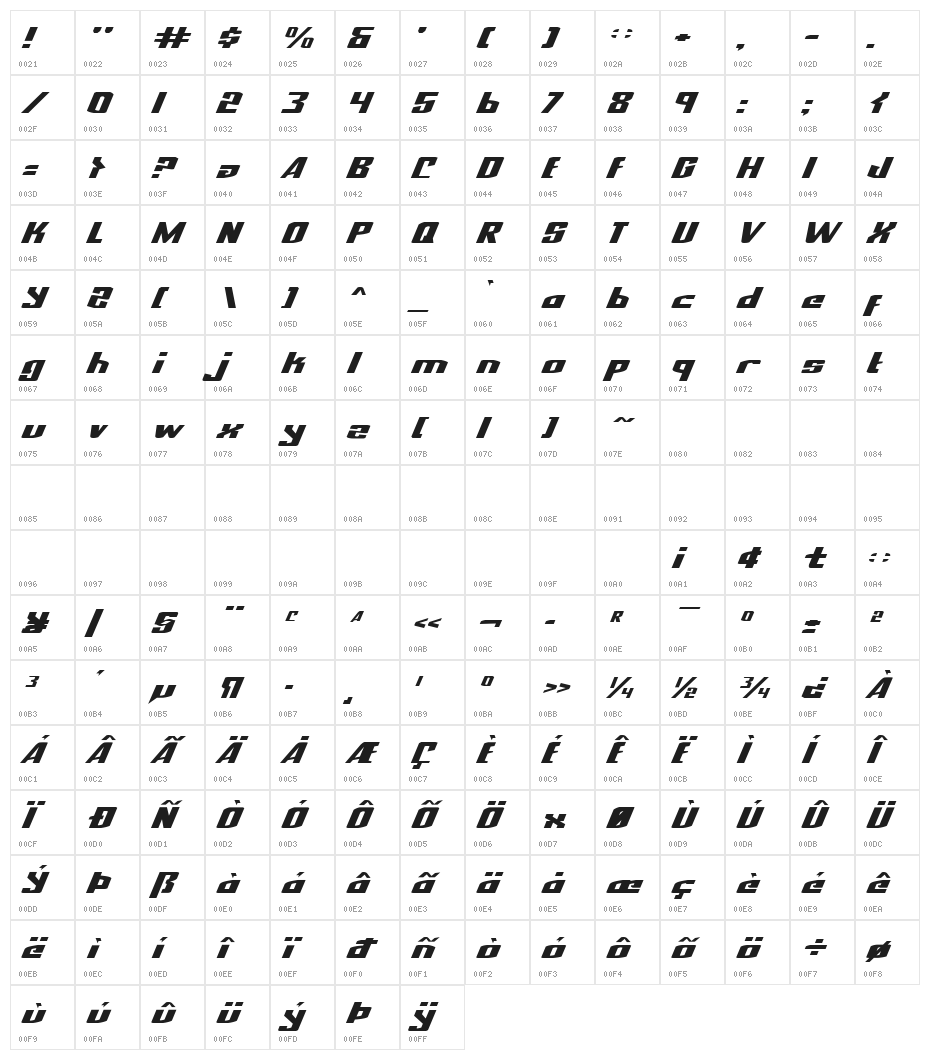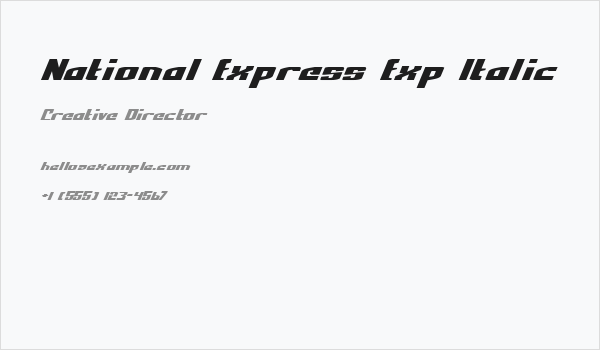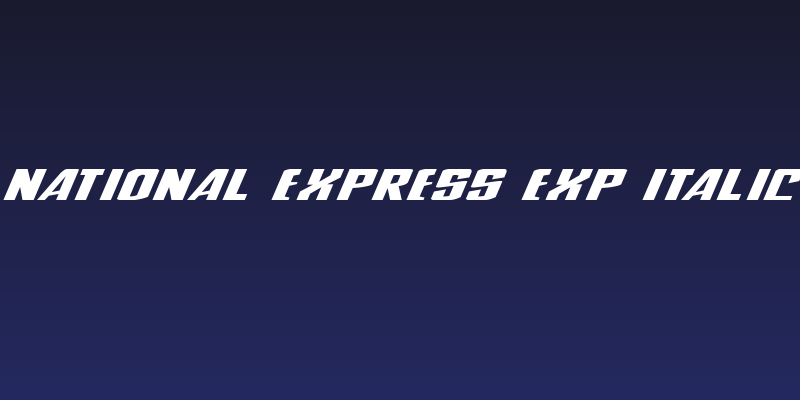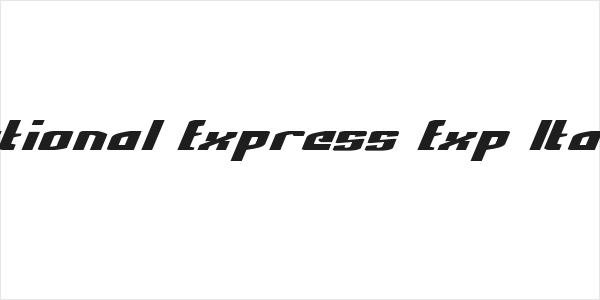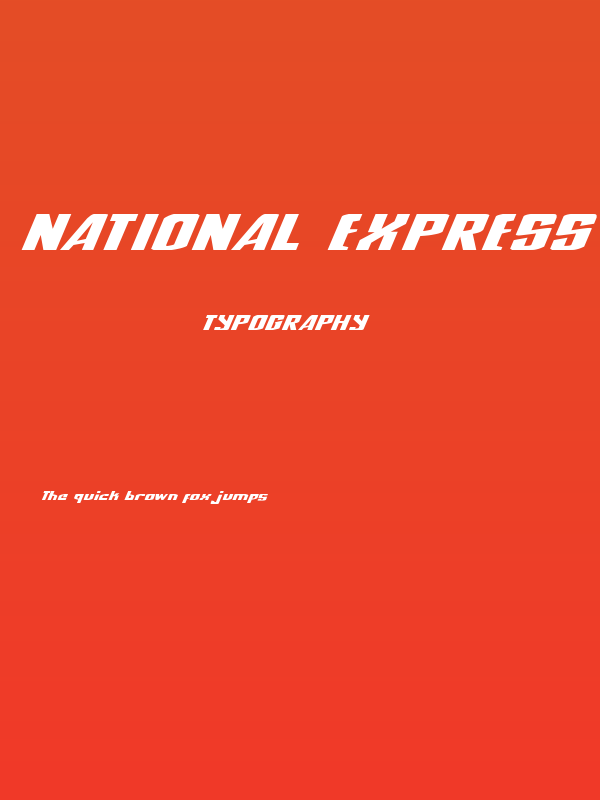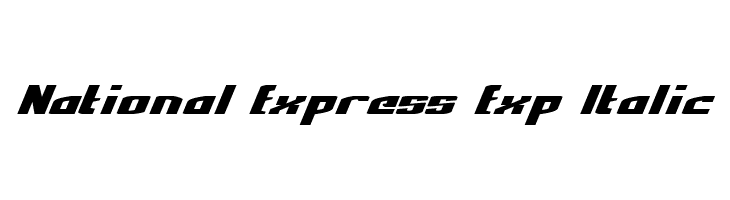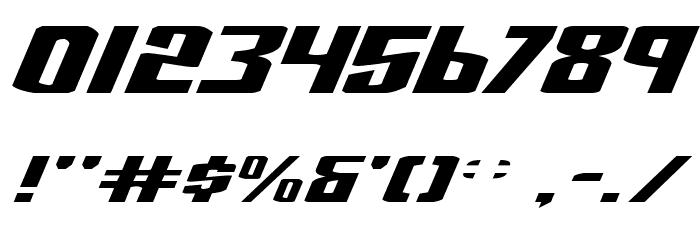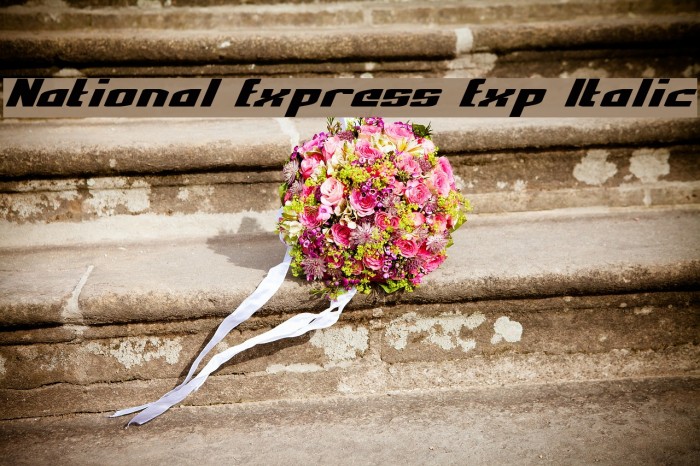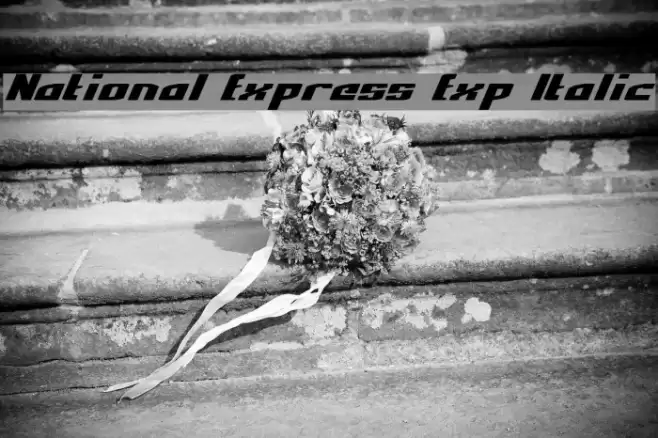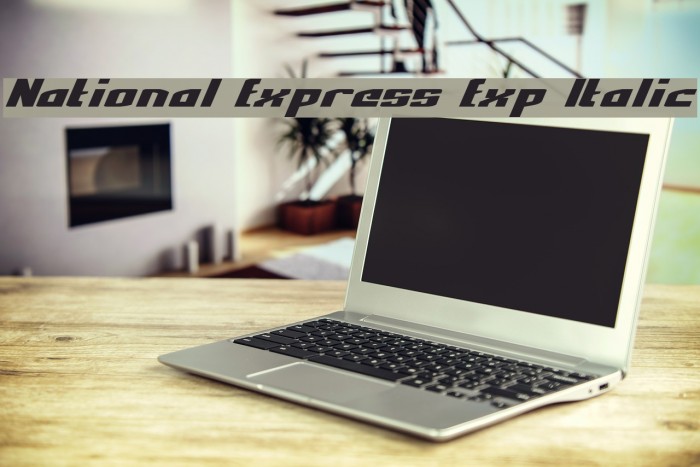
National Express Exp Italic Font
This font features a dynamic and bold italic style with sharp, angular edges that convey a sense of speed and movement. The uppercase letters are particularly striking, with a forward-leaning stance that enhances the energetic feel. The lowercase letters maintain this dynamic quality, ensuring consistency throughout. Numbers and special characters are designed with the same angular precision, making them highly legible and visually impactful. The overall design is modern and assertive, suitable for projects that require a strong, attention-grabbing typeface.
| Proposed Projects | Ideal for branding, sports team logos, automotive designs, and dynamic advertising campaigns. |